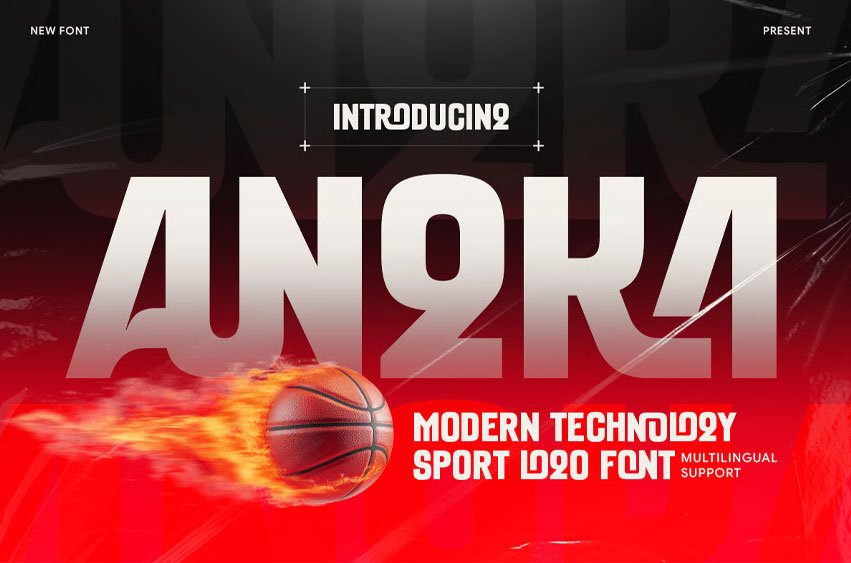
Angka Font
Angka Font Modern Technology Sport Font Angka is a modern technology sport font designed to deliver speed, energy, and futuristic visual impact. Featuring sharp angles, dynamic shapes, and bold techno styling, Angka is perfect for sports branding, esports logos, racing graphics, gaming visuals, fitness brands, and high-energy design projects.
Built with a strong technological aesthetic, Angka combines modern sporty character with excellent readability, making it ideal for digital interfaces, team branding, posters, merchandise, and athletic promotions. Its bold and futuristic style ensures your designs stand out with power and motion.
Angka – Modern Technology Sport Font Features:
• Modern techno sport style with futuristic character
• Ideal for sports logos, esports branding, and gaming visuals
• Uppercase, lowercase, numerals, and punctuation included
• Sharp dynamic letterforms with strong visual impact
• Perfect for racing, fitness, gaming, and sport design projects